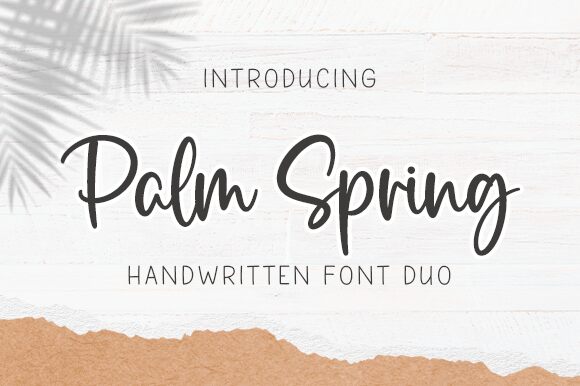
Palm
Captivate your audience with the distinctive charm of Palm, a handwritten font designed by Graphix Line Studio. Its semi-light weight gives off an airy and effortless vibe, perfect for conveying a sense of warmth and authenticity in your creative projects. With its organic flow and natural imperfections, Palm exudes a casual elegance that is versatile across a range of design applications.
Whether you're working on branding, packaging, editorial design, or social media graphics, this font adds a touch of personality and character to your work. Embrace the playful yet polished nature of Palm to infuse your designs with a unique handcrafted feel that will resonate with your audience.
Let Palm be the standout element in your next project and watch it come to life with its one-of-a-kind appeal.